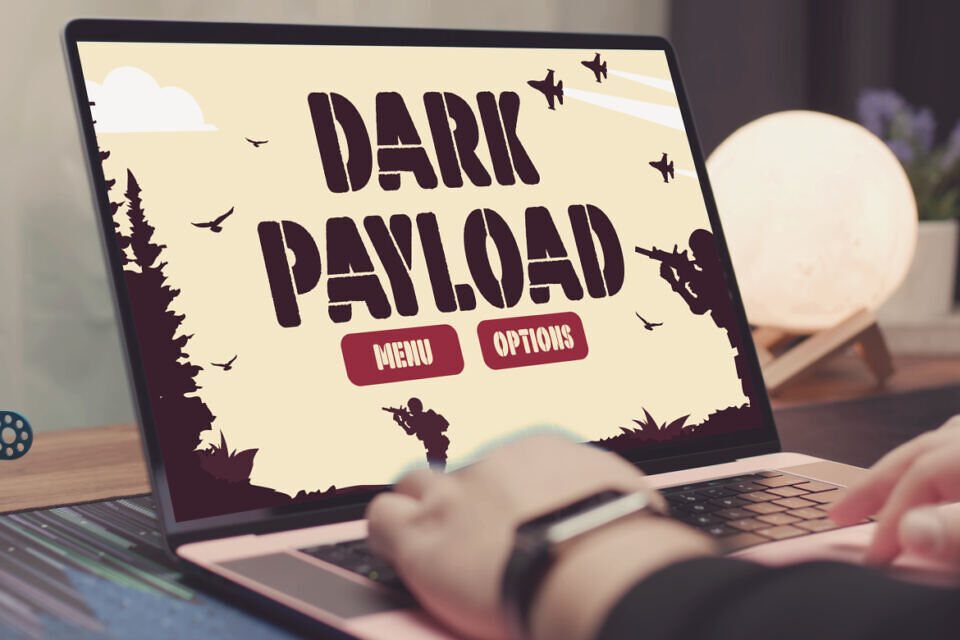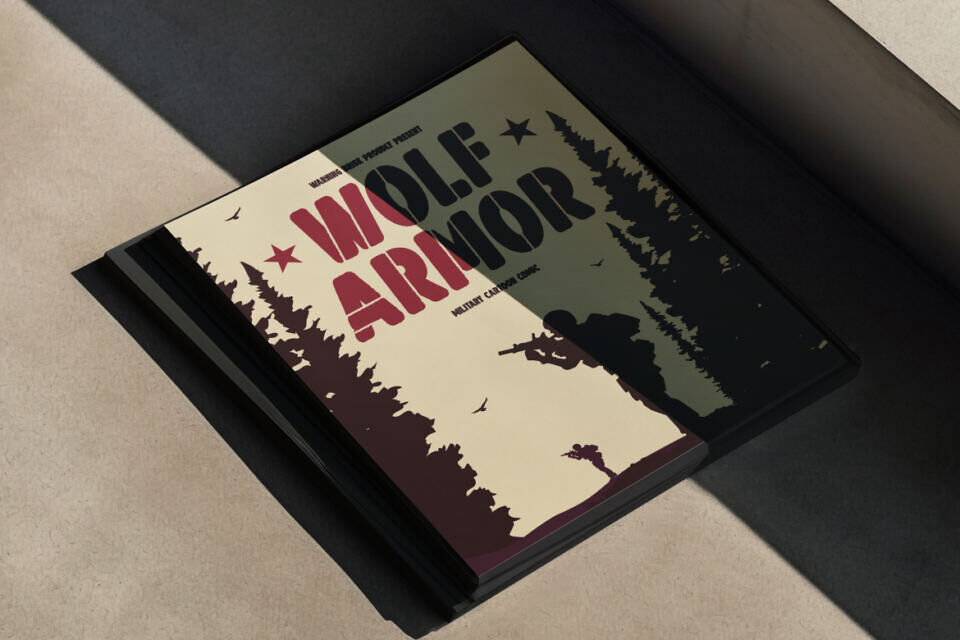
Hold Deck Font
Hold Deck Stencil Font is a bold and powerful display typeface inspired by classic army stencils and modern design needs. Each character is crafted with sharp, clean cuts that mimic authentic stencil shapes, giving it a rugged yet structured appearance.
The font carries strong military vibes while keeping a playful edge, making it versatile for both serious and fun projects. Its thick, solid strokes ensure maximum readability, while the stencil cuts add unique personality and style to every word. The overall look feels commanding and confident, ideal for designs that need to stand out with authority.